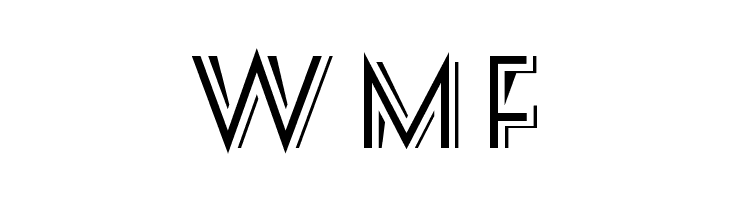
Seaside Resort NF Font
Font by Nick Curtis - www.nicksfonts.com
A bold, Art Deco-inspired font with geometric shapes and elegant lines.
Beach Resort Font
A bold, playful handwritten script with smooth curves and a dynamic slant.
SpaceResortLite Font
A bold, futuristic font with sleek, italicized letterforms and tight spacing.
The Island Resort Font
Font by Woodcutter